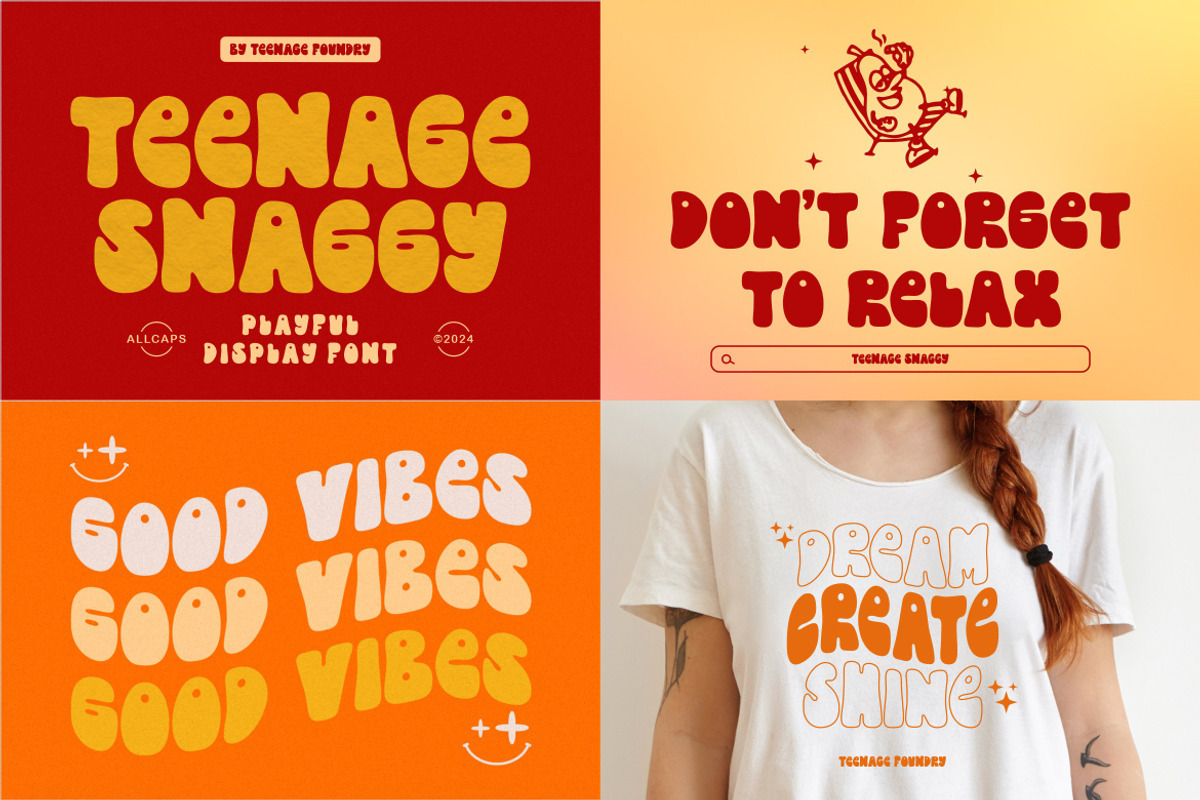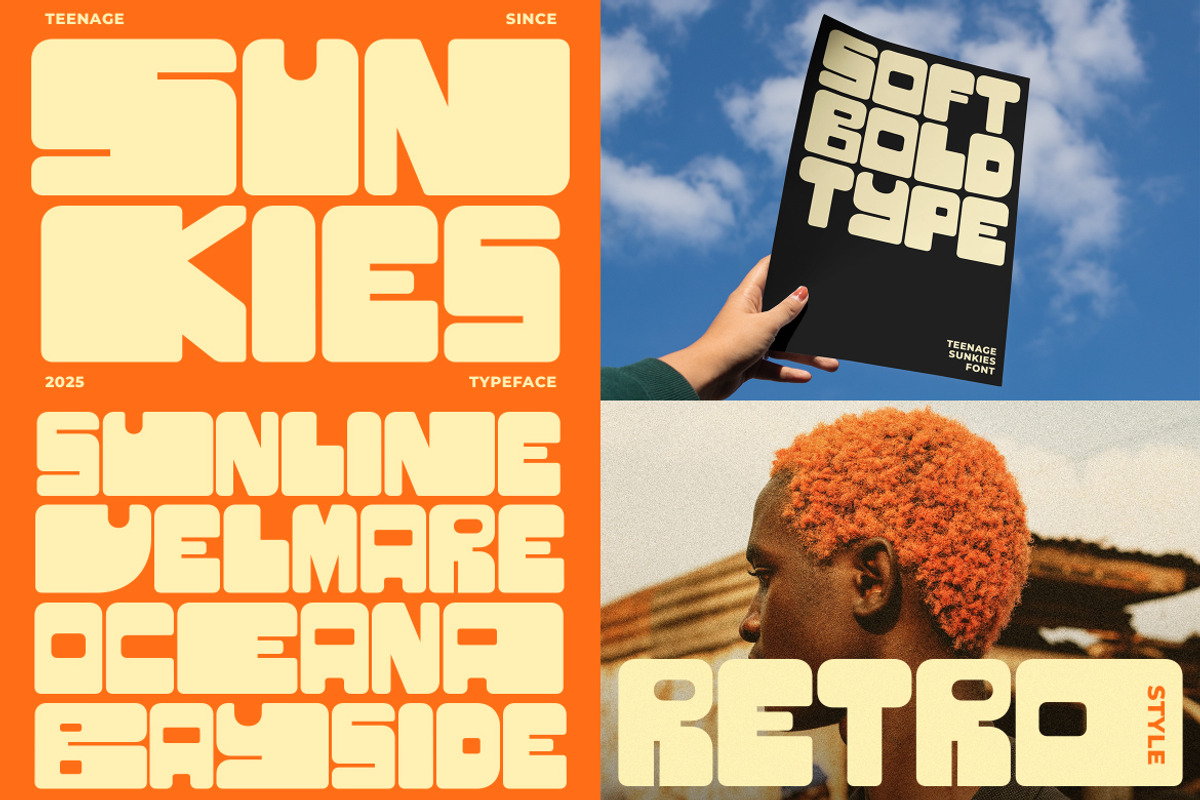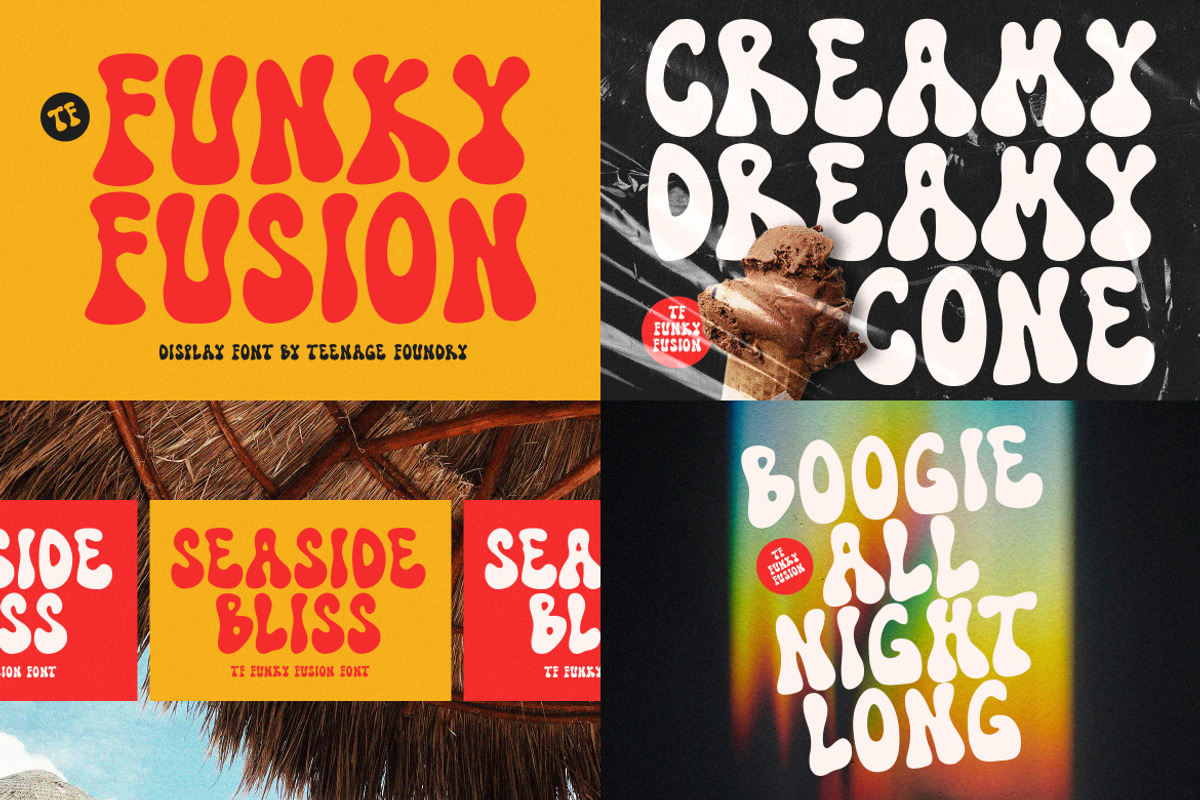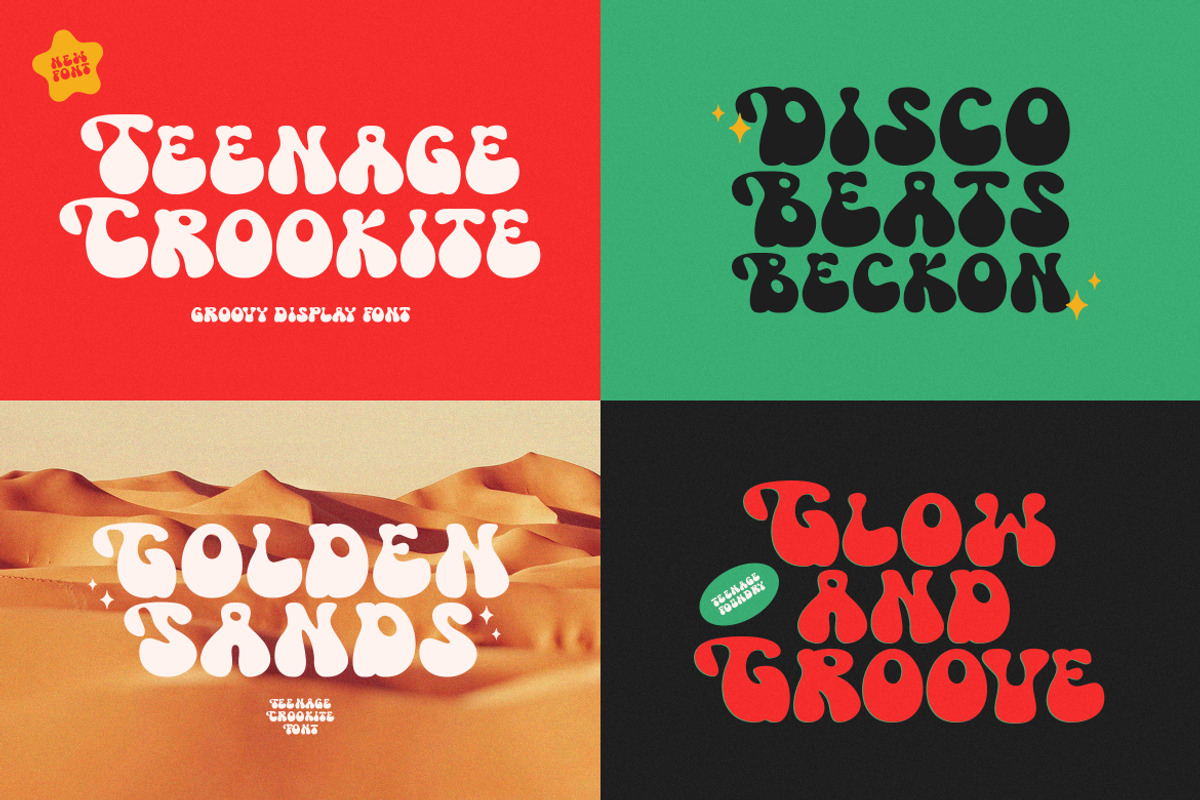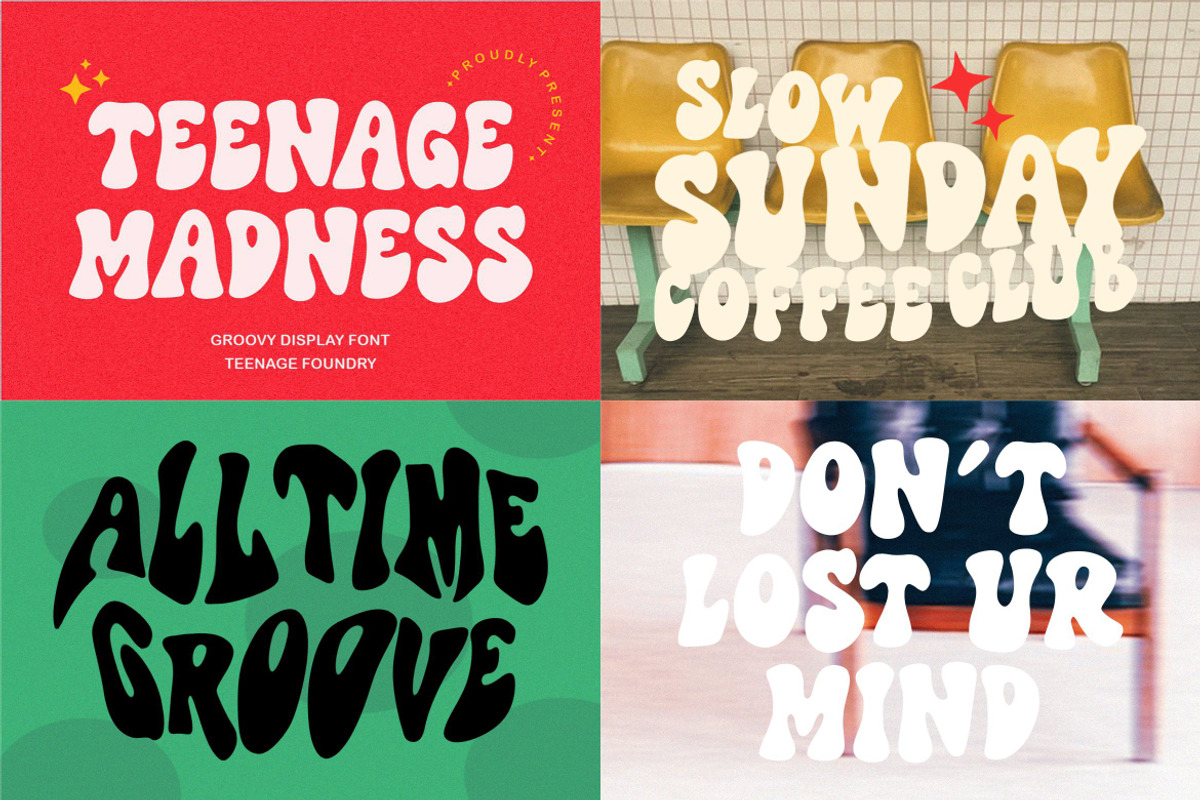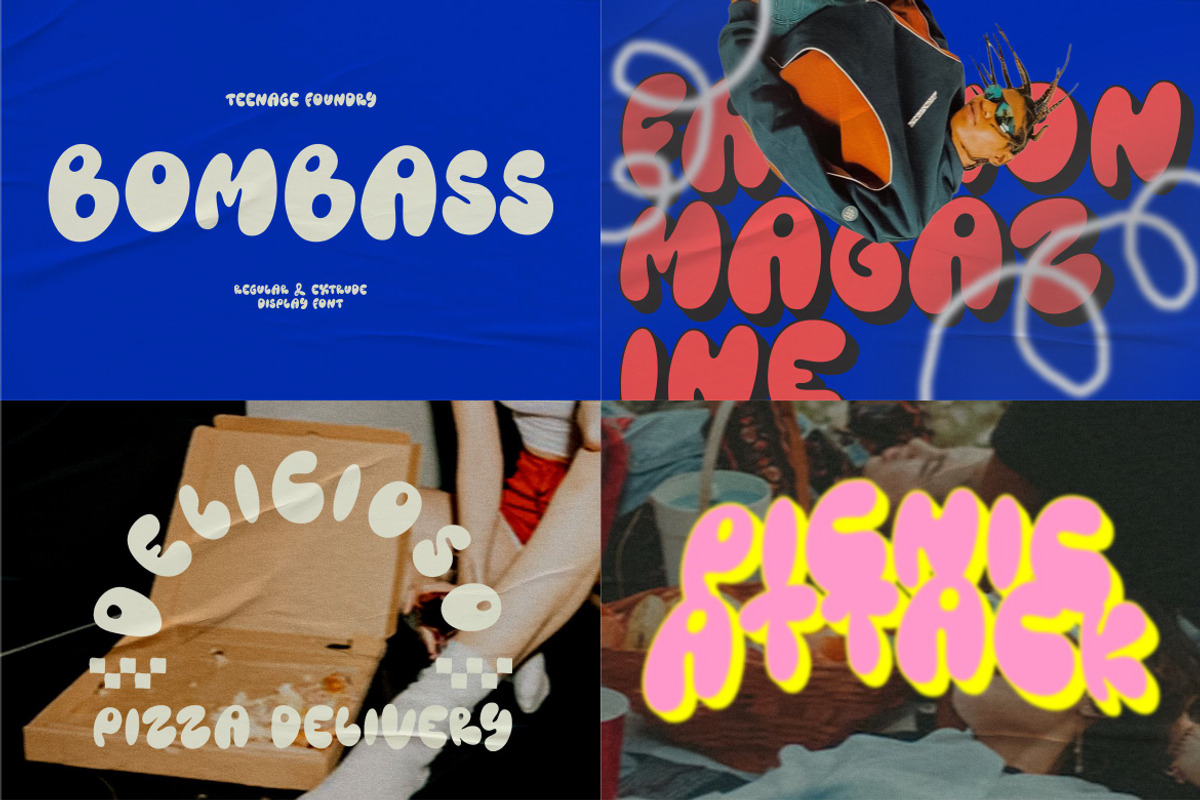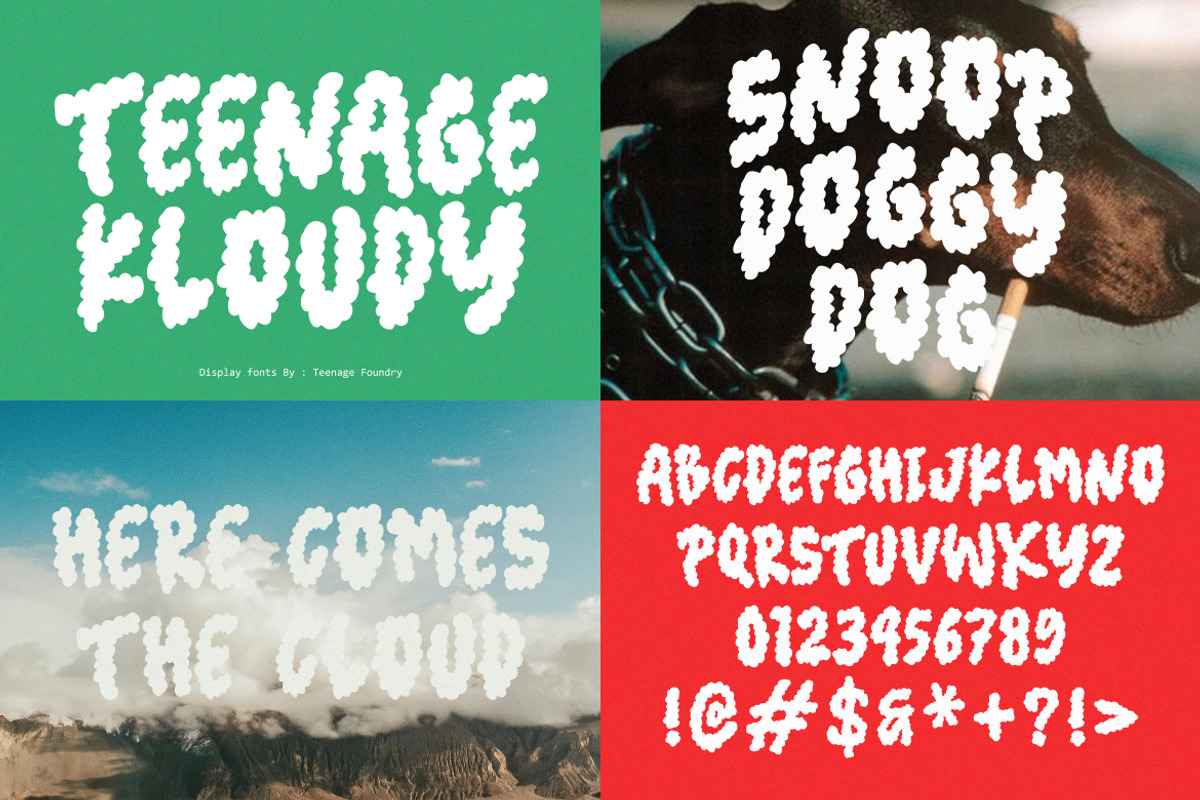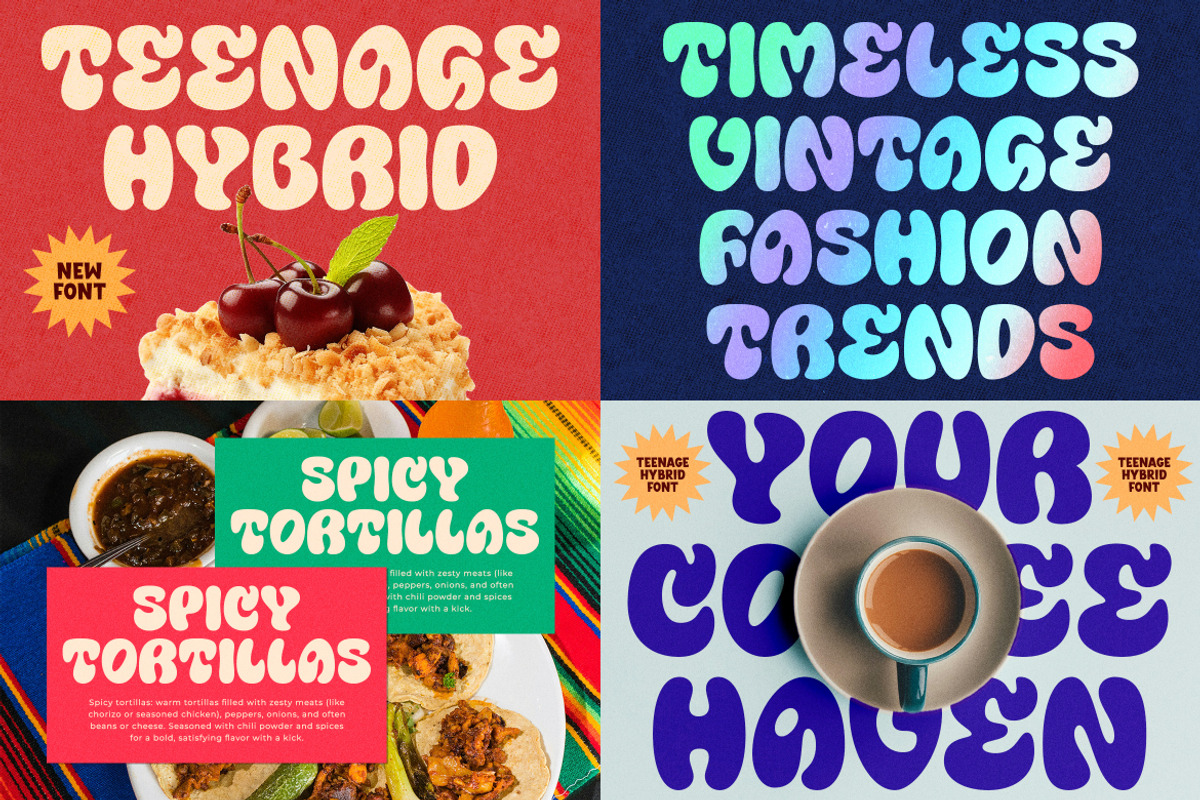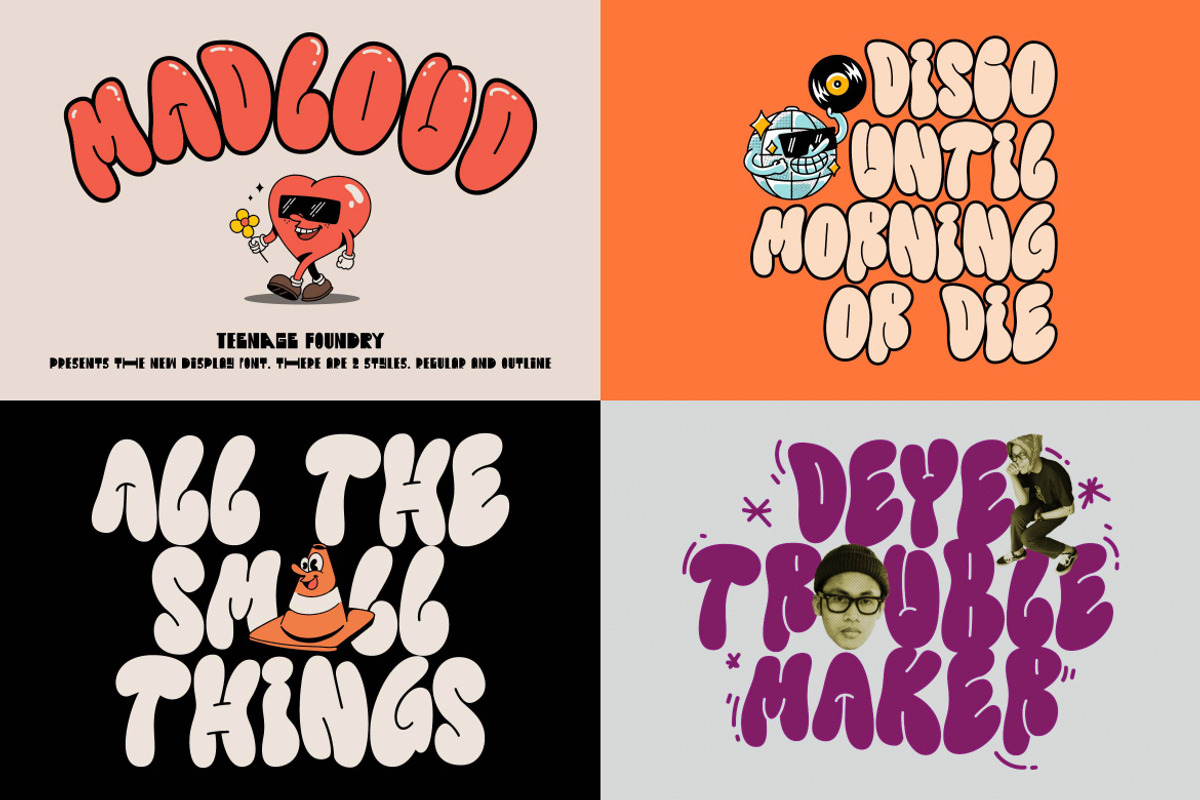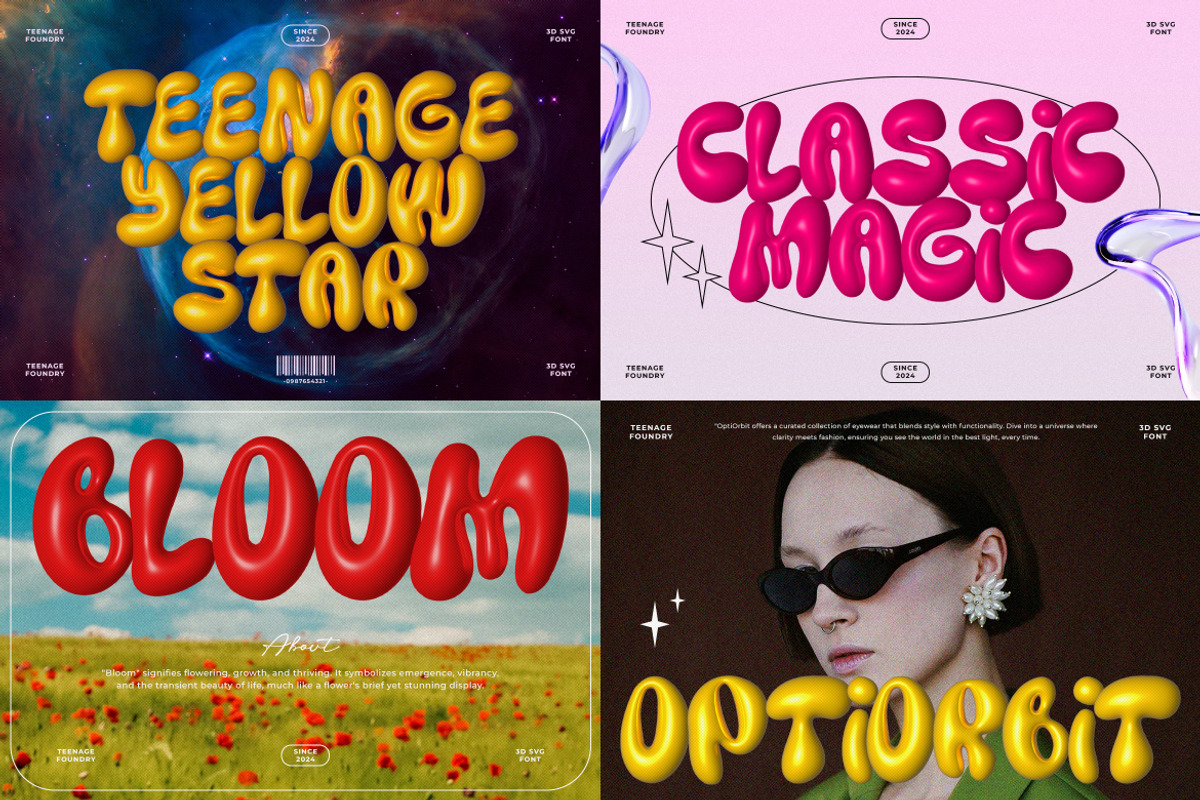
The Suprising Retro Font Bundle
The Surprising Retro Font Bundle offers a collection of 15 unique and charming fonts that evoke a nostalgic, retro feel.
This bundle is perfect for adding a touch of vintage flair to your designs, whether for branding, posters, invitations, or other creative projects.
- TF Madloud https://creativemarket.com/TeenageFoundry/92063765-TF-Madloud
- Teenage Spermo https://creativemarket.com/TeenageFoundry/92063830-Teenage-Spermo
- Teenage Kloudy https://creativemarket.com/TeenageFoundry/92063839-Teenage-Kloudy
- TF Bombass https://creativemarket.com/TeenageFoundry/92063807-TF-Bombass
- Teenage Popular https://creativemarket.com/TeenageFoundry/283035695-Teenage-Popular
- Teenage Madness https://creativemarket.com/TeenageFoundry/92438341-Teenage-Madness-Groovy-Display
- Teenage Sunkies https://creativemarket.com/TeenageFoundry/290924685-Teenage-Sunkies
- Teenage Gonabe https://creativemarket.com/TeenageFoundry/92063750-Teenage-Gonabe
- Teenage Decay https://creativemarket.com/TeenageFoundry/92063842-Teenage-Decay
- Teenage Hybrid https://creativemarket.com/TeenageFoundry/279351847-Teenage-Hybrid
- Teenage Crookite https://creativemarket.com/TeenageFoundry/92149771-Teenage-Crookite
- Teenage Closel https://creativemarket.com/TeenageFoundry/92149775-Teenage-Closel
- TF Funky Fusion https://creativemarket.com/TeenageFoundry/92149792-TF-Funky-Fusion
- Teenage Yellow Star https://creativemarket.com/TeenageFoundry/92551808-Teenage-Yellow-Star-%E2%80%93-3D-SVG-Font
- Teenage Snaggy https://creativemarket.com/TeenageFoundry/141899588-Teenage-Snaggy